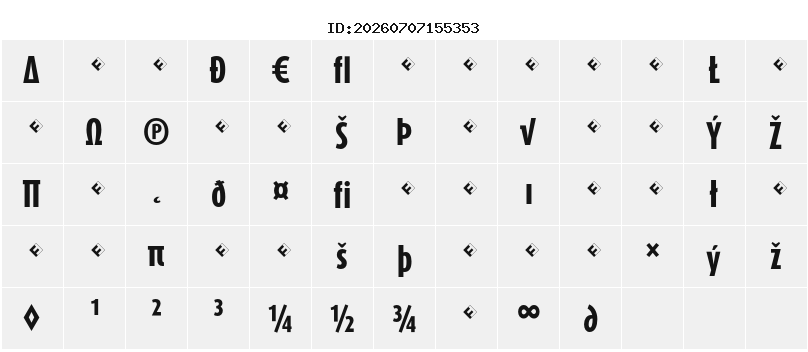
• Font Name: DaxCompact-ExtraBoldExpert
• Full Font Name: DaxCompact-ExtraBoldExpert
• Copyright: 2003 Hans Reichel, published by FontShop International for the FontFont library.
About DaxCompact-ExtraBoldExpert.otf
DaxCompact-ExtraBoldExpert.otf is a modern, elegant sans-serif font designed for ultimate readability and visual harmony. Perfect for branding, headlines, web design, and print materials.